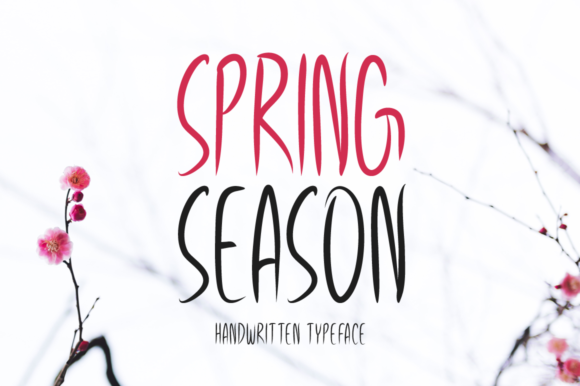
Embrace the charm and elegance of the season with Spring Season Font, a captivating display font that radiates the very essence of springtime. Let your creativity blossom as you explore its organic shapes and flowing curves, reminiscent of nature's gentle awakening.
Crafted with meticulous attention to detail, Spring Season Font embodies the beauty and joy of the season, inviting you to create designs that exude a sense of warmth and renewal. Its graceful characters dance across the page, evoking the delicate petals of flowers in bloom and the vibrant colors that paint the landscape.
Transport your audience to a world of enchantment with Spring Season Font. Capture the magic of a morning stroll through a dew-kissed meadow, the tranquility of a babbling brook, or the exhilaration of a warm breeze carrying the scent of wildflowers.
Whether you're designing eye-catching social media graphics, enchanting invitations, or stunning website headers, Spring Season Font is your perfect companion. Its versatility knows no bounds, allowing you to weave your creative vision into reality. Indulge in the freedom to express yourself fully, knowing that Spring Season Font will effortlessly elevate your designs.